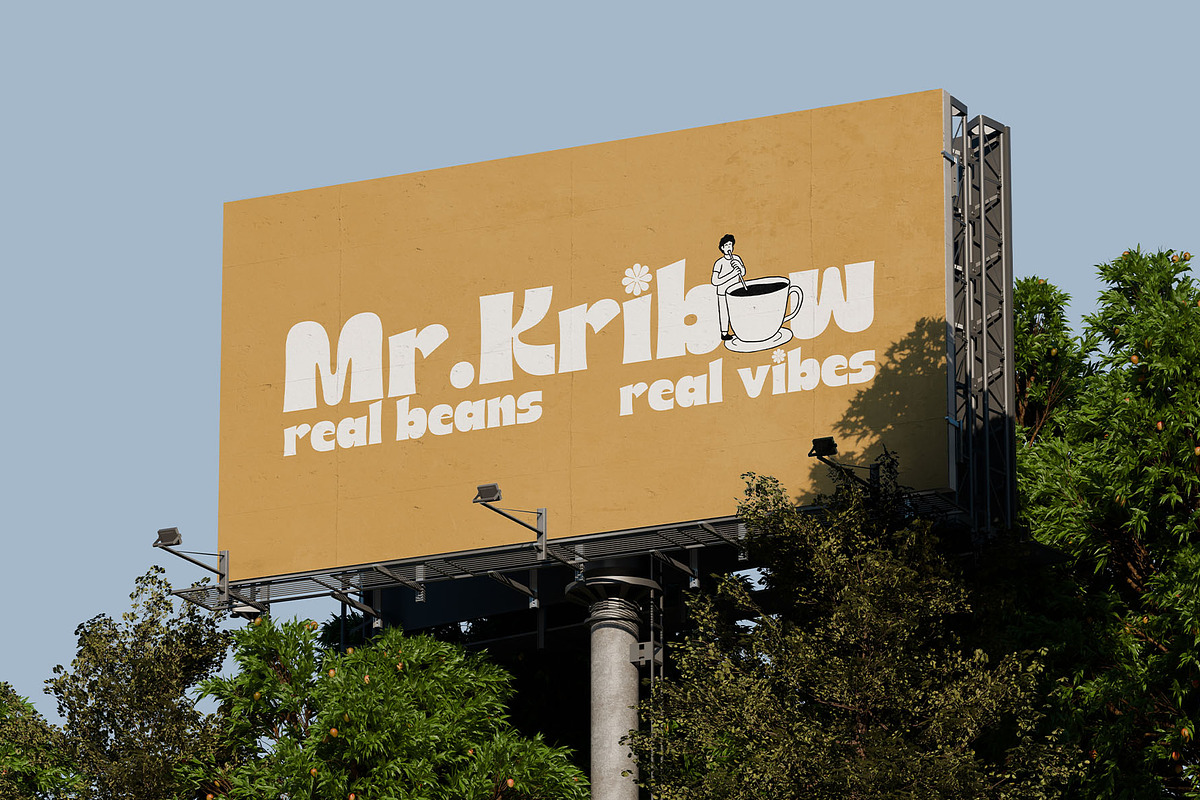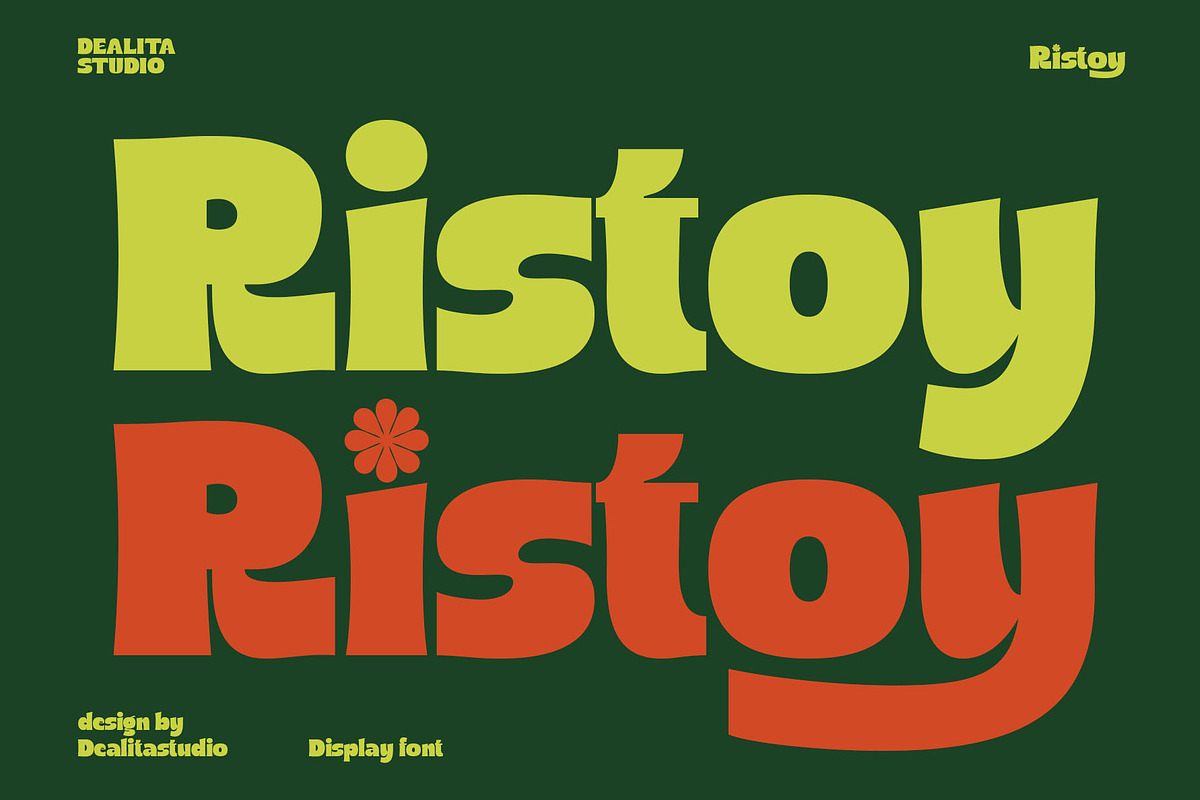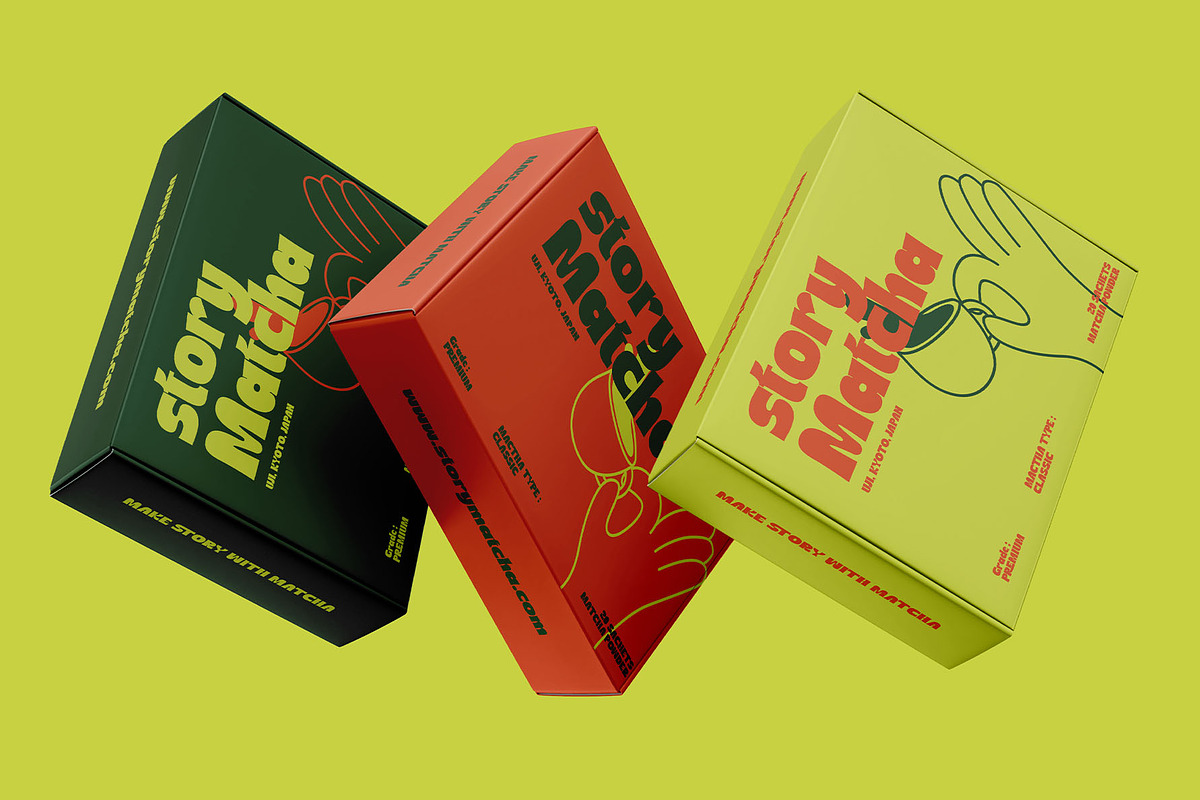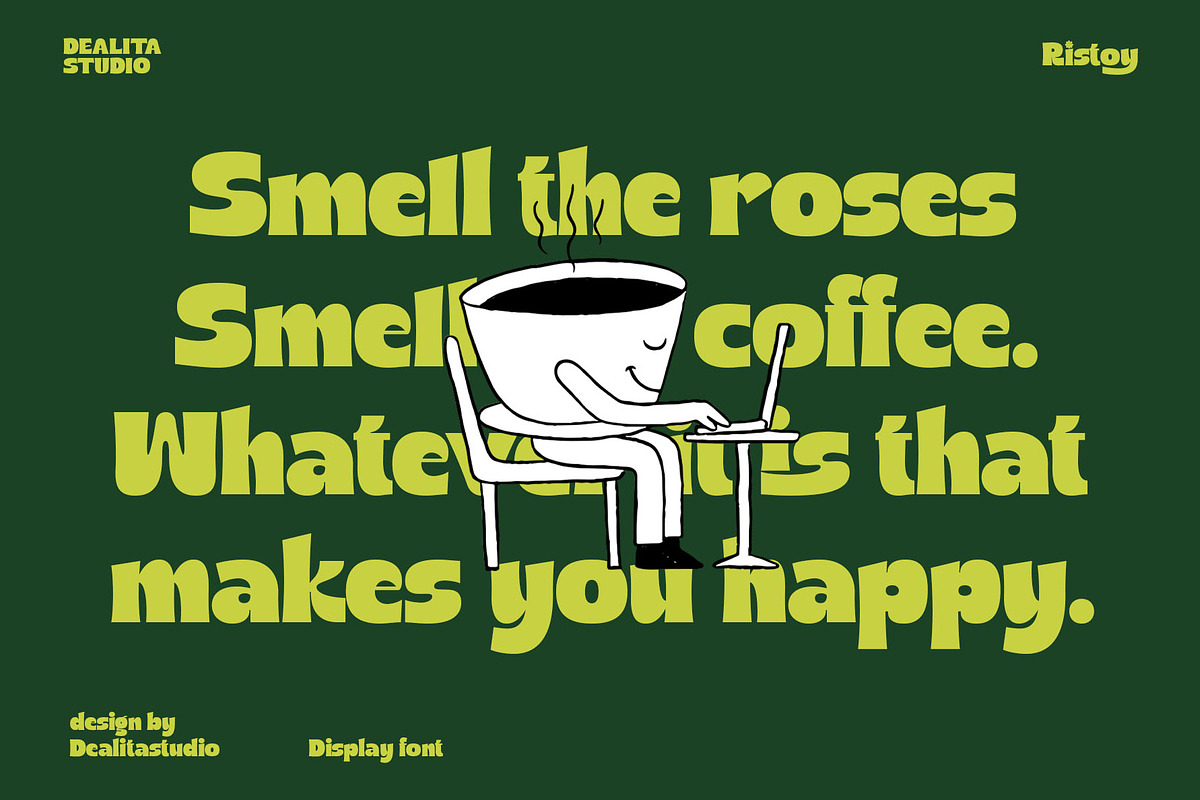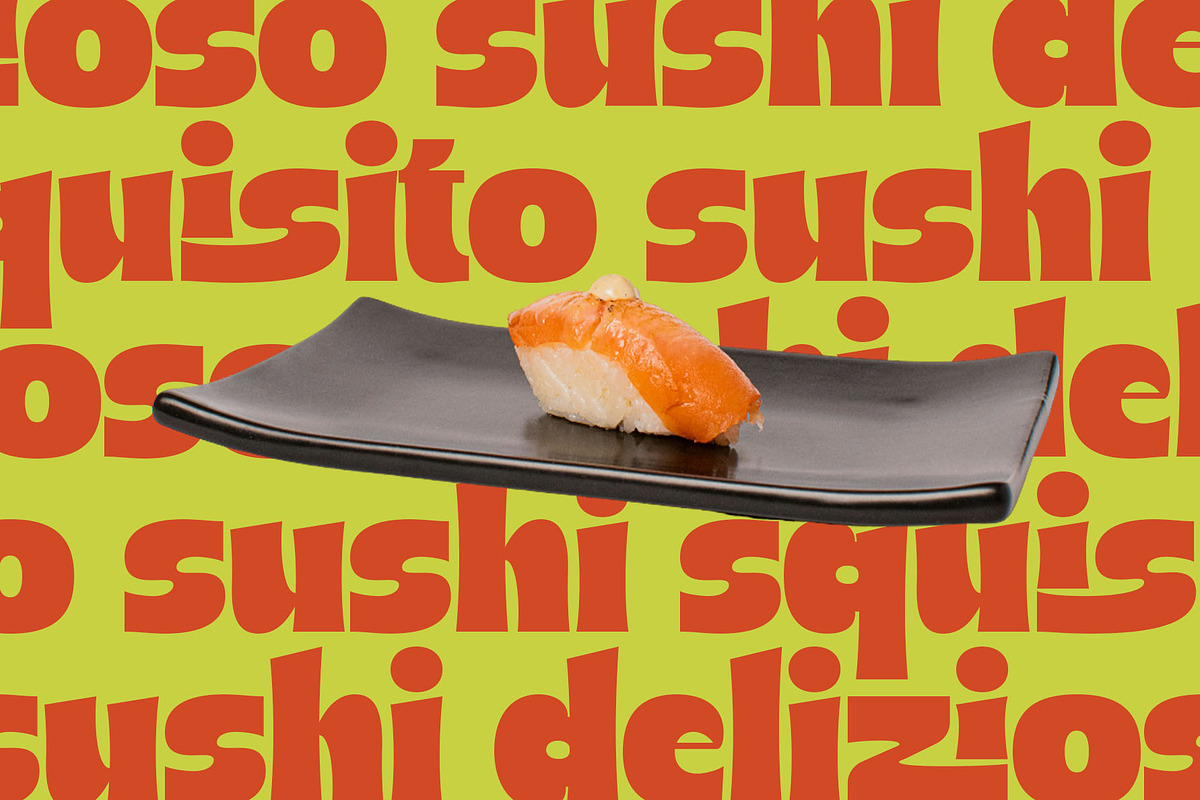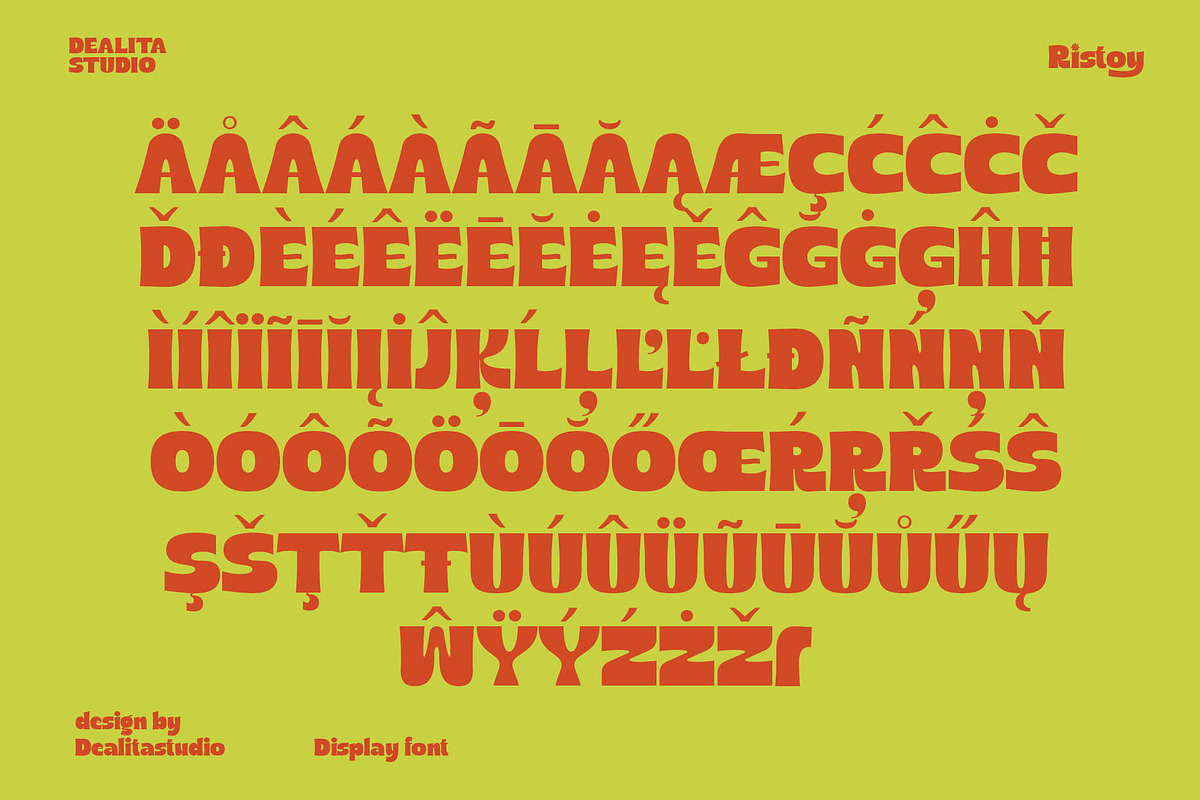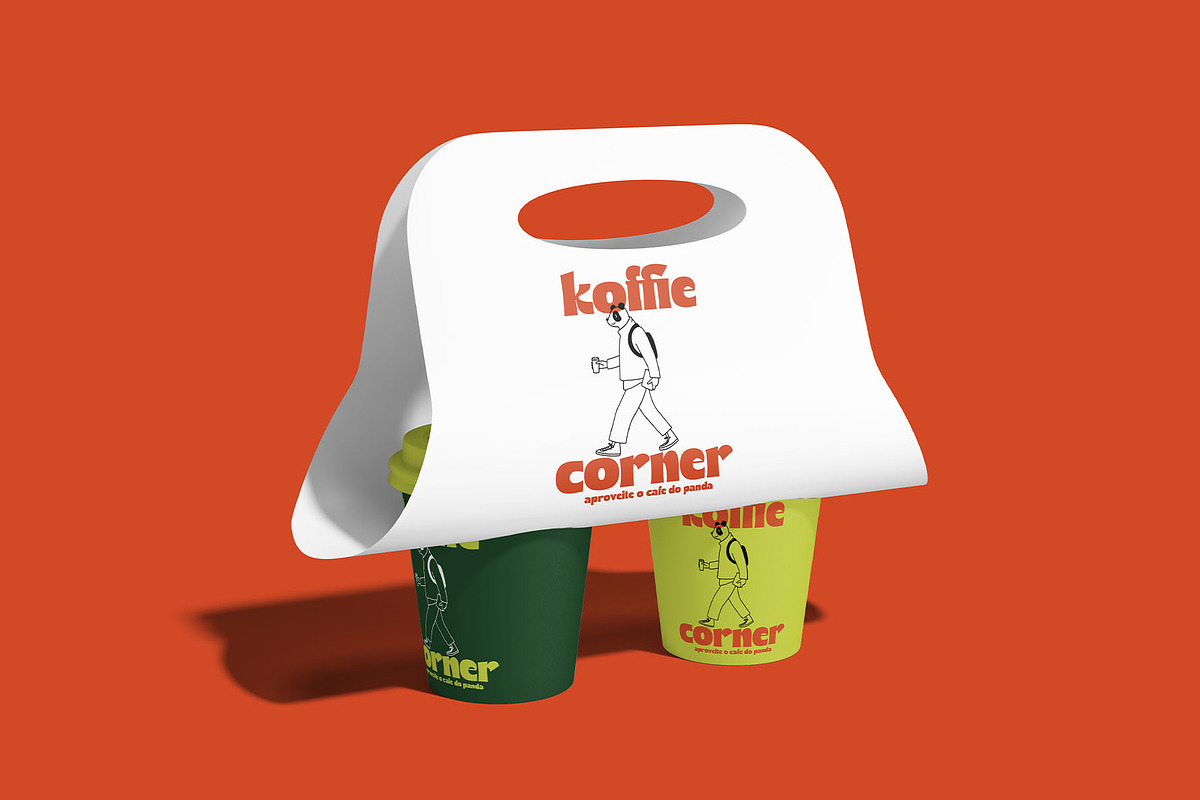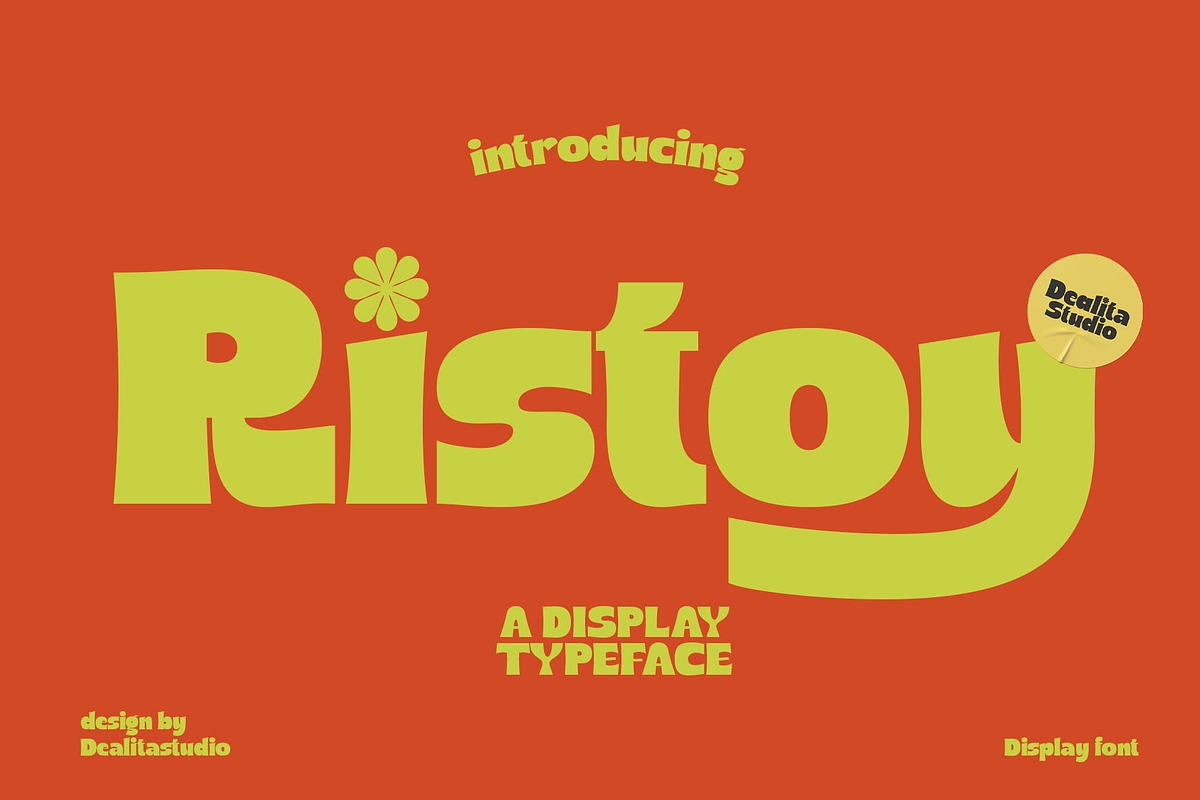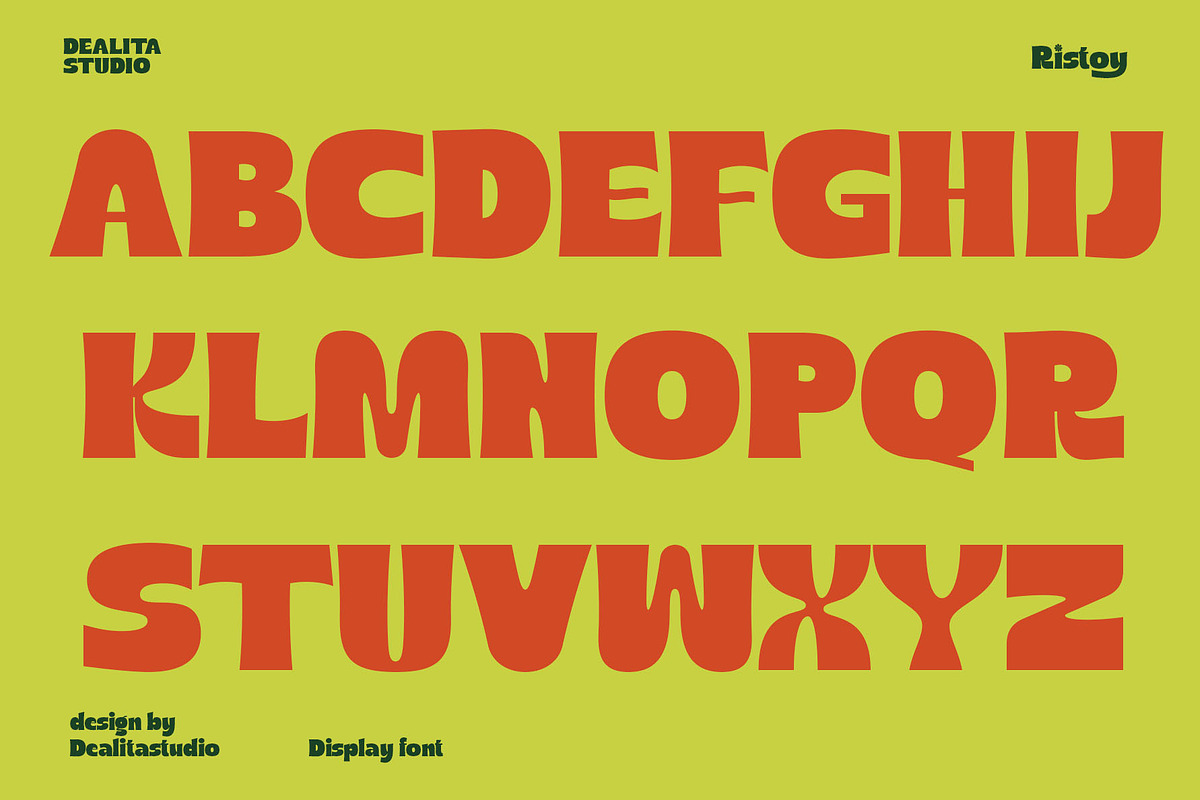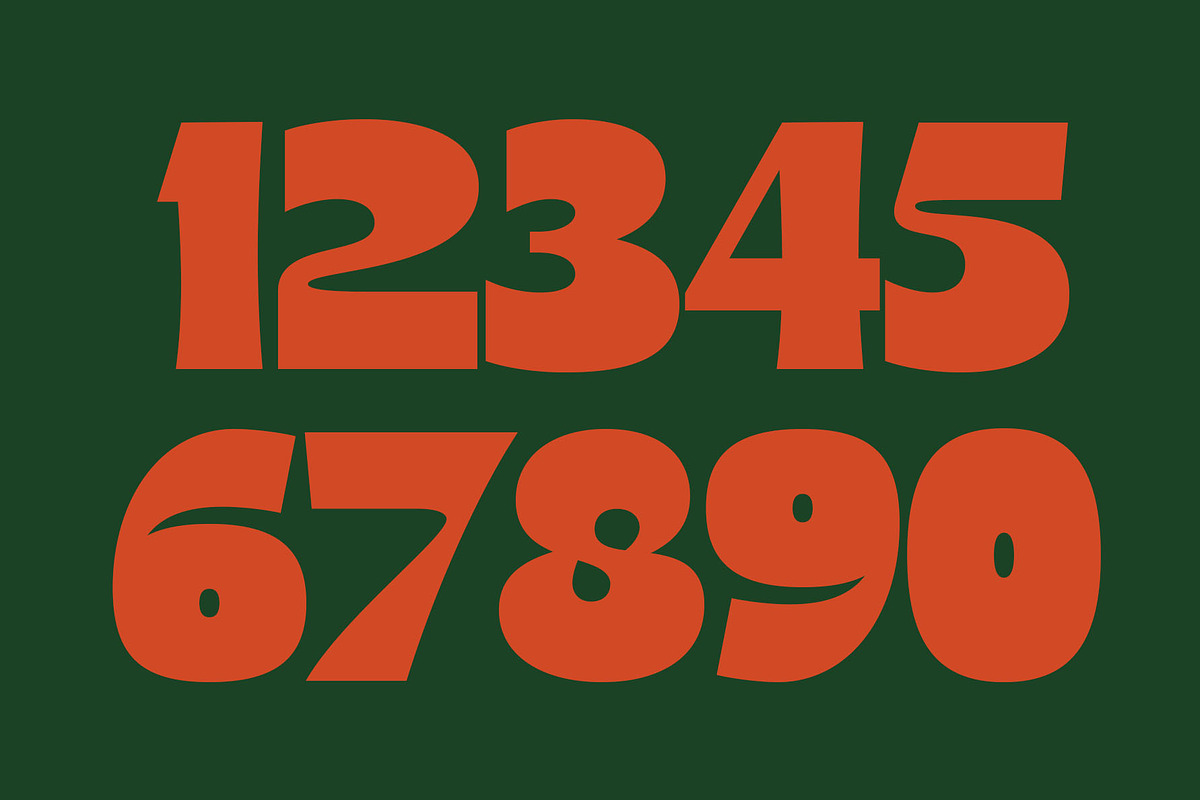
Ristoy - Bold Display Sans
⚡ RISTOY – Bold Display Sans that's Corporate Yet Playful ⚡
Break corporate monotony with a font that balances authority + quirky energy. Ristoy is engineered for modern branding that demands attention—perfect for tech startups, premium packaging, and standout logotypes.
- Modern corporate identities & tech startups
- Creative packaging & product branding
- Bold logotypes & headline typography
- Startup websites & digital displays